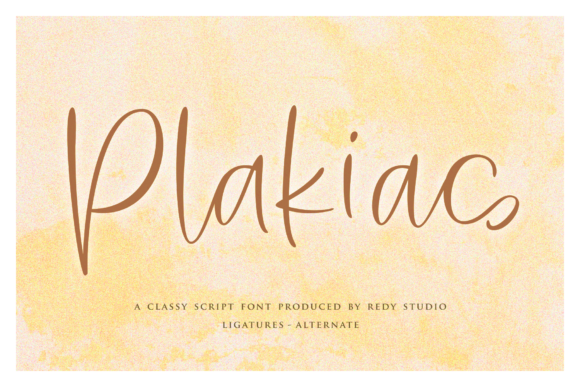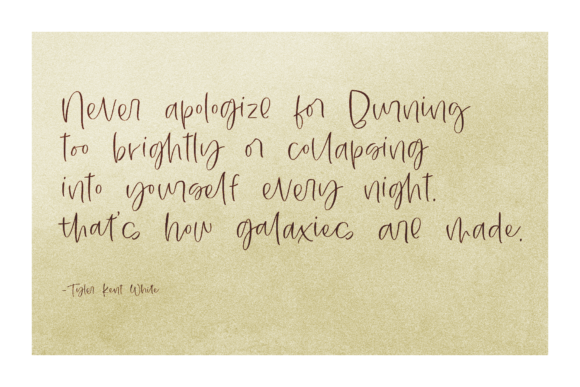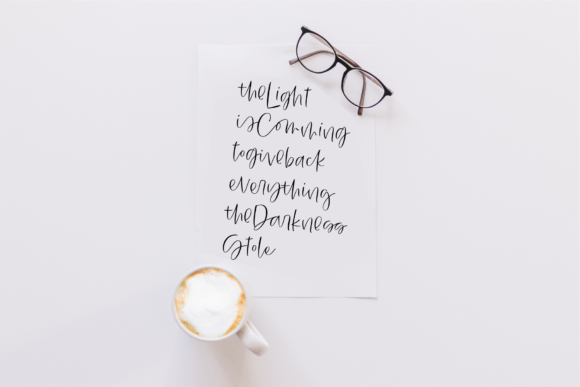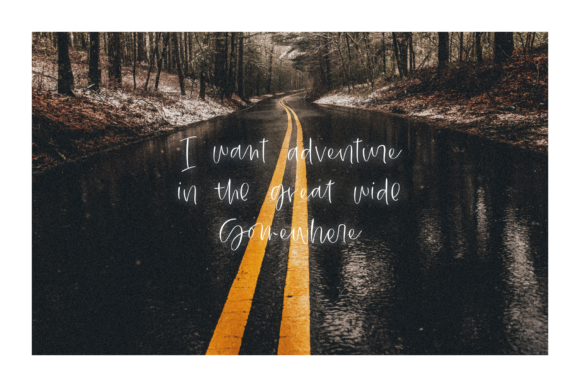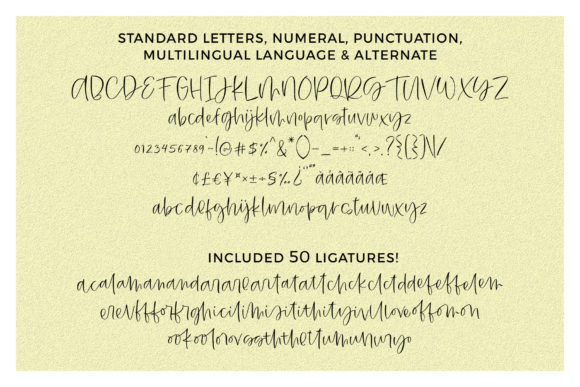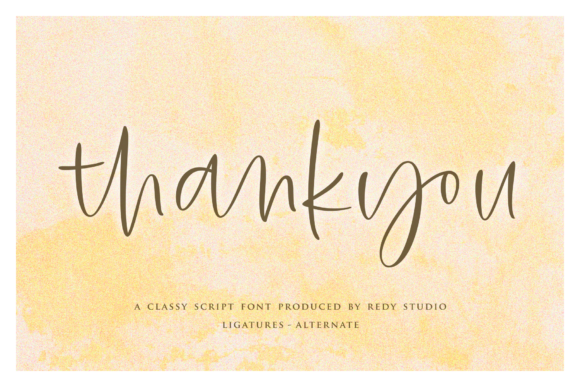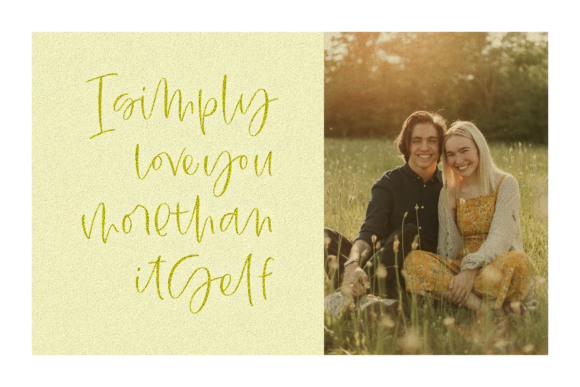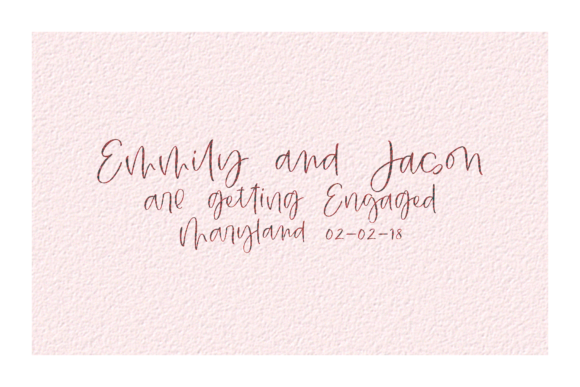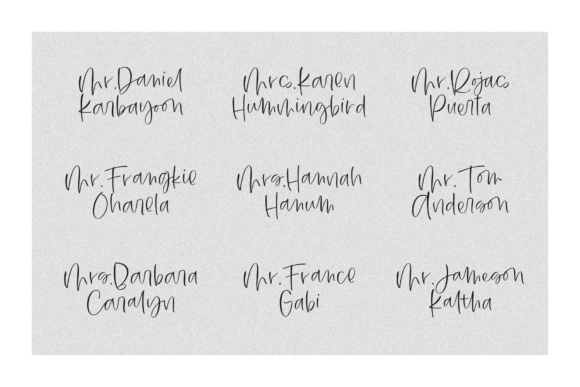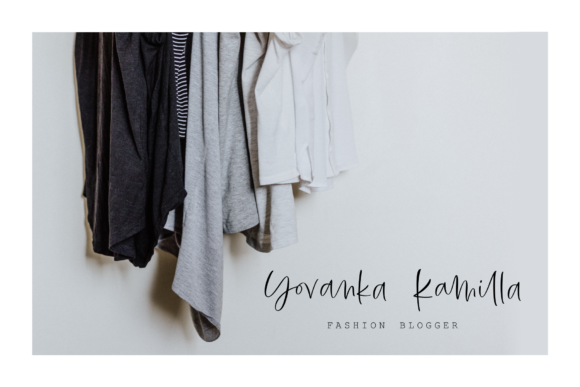
Plakias Font
About Plakias Font
The Plakias is a classy script font. It includes lots of stylish alternates which make it perfect for adding a upscale and chic look to your designs.
It can be used for signature logos, printed quotes, wedding invitation cards, social media headers, product packaging, and much more!